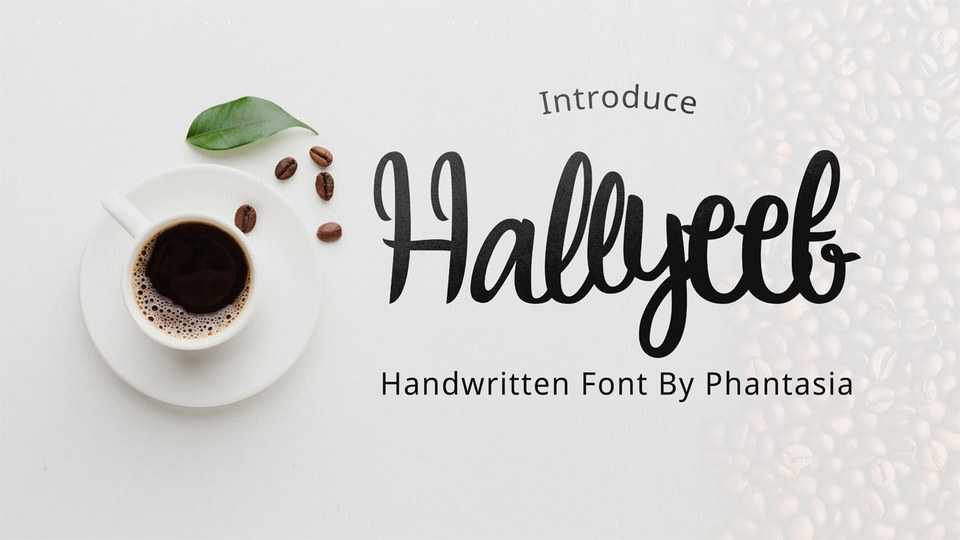
Download Hallyeet font, a lovely handwritten typeface with a natural and smooth flow. Hallyeet is perfect for crafts, ornaments, shirts, mugs, headings, blogs, invitations and more.